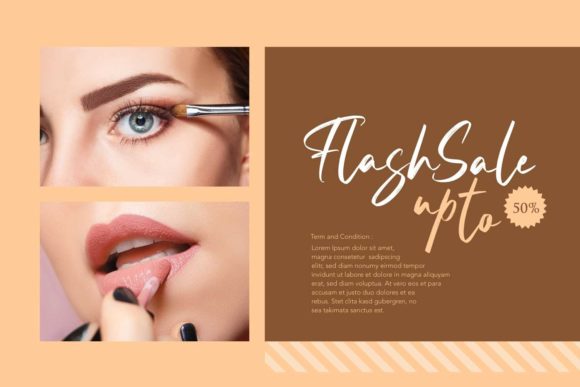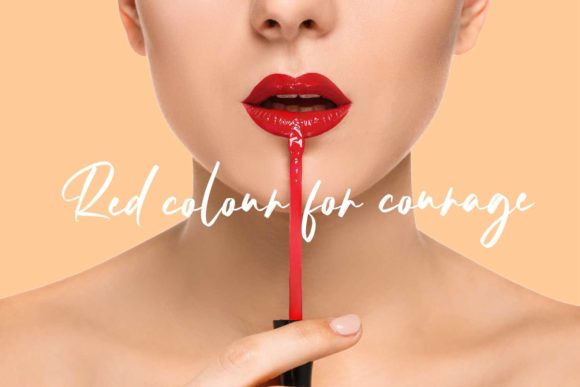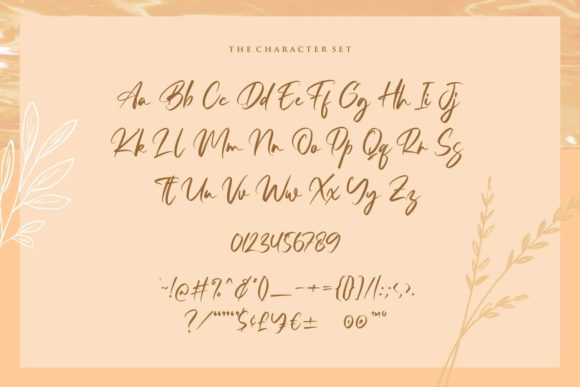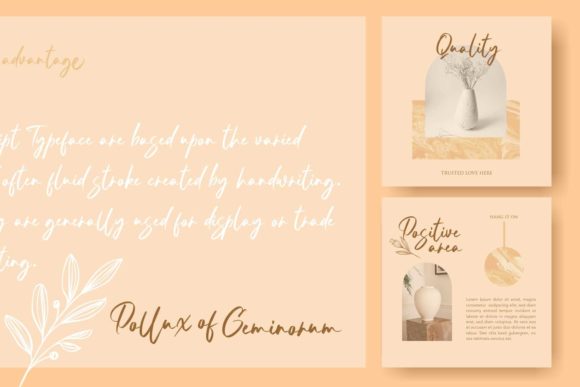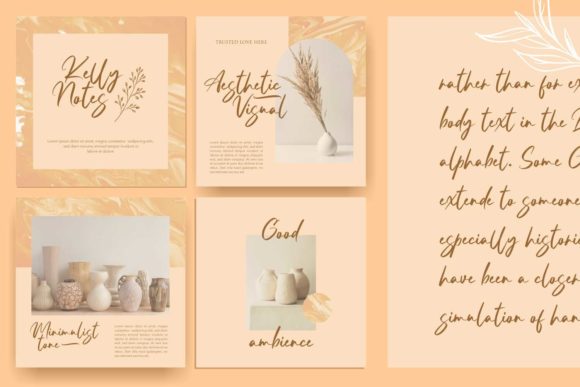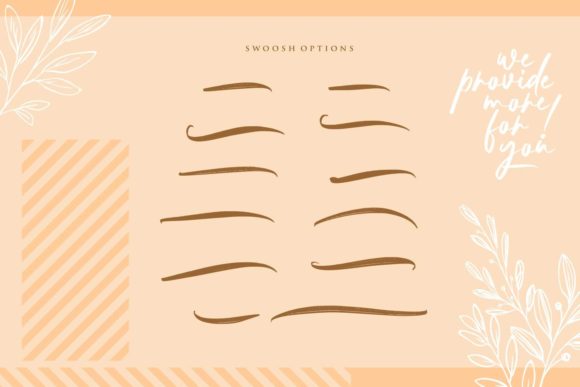
Bresitton Font: Elevate Your Designs with a Relaxed Brushed Script
In the world of graphic design, typography plays a crucial role in conveying the tone and aesthetic of a project. When it comes to creating visually stunning and cohesive designs, selecting the right font is essential. If you’re on the hunt for a font that exudes a sense of relaxation and sophistication, look no further than Bresitton. This beautiful brushed script font is designed to bring a touch of elegance and modernity to your designs, making it perfect for a wide range of applications.
What is Bresitton Font?
Bresitton is a carefully crafted brushed script font that boasts a sleek and gorgeous appearance. Its relaxed demeanor makes it an excellent choice for designers who want to add a touch of personality to their work without compromising on readability. Whether you’re working on a social media campaign, product packaging, poster, or banner, Bresitton is the perfect companion to help you achieve your creative vision.
Key Features of Bresitton Font
So, what sets Bresitton apart from other fonts? Here are some of its key features:
- Relaxed Brushed Script: Bresitton’s unique brushed script style gives it a laid-back, effortless vibe that’s perfect for designs that require a touch of sophistication.
- Sleek and Gorgeous: With its clean lines and elegant curves, Bresitton is sure to elevate your designs and make them stand out from the crowd.
- Swashes and Ligatures: To give you even more creative flexibility, Bresitton comes with a range of swashes and ligatures. These allow you to experiment with different combinations and create truly unique designs.
- Versatile: Whether you’re working on a social media post, product packaging, or large-scale advertising campaign, Bresitton is the perfect choice.
Why Choose Bresitton Font?
With so many fonts available, why should you choose Bresitton? Here are just a few compelling reasons:
- Unique Style: Bresitton’s distinctive brushed script style sets it apart from more traditional fonts, giving your designs a fresh and modern look.
- Ease of Use: Despite its sophisticated appearance, Bresitton is incredibly easy to use, even for those who are new to graphic design.
- Time-Saving: With Bresitton’s extensive range of swashes and ligatures, you can create a wide range of designs without having to spend hours crafting each one from scratch.
Using Bresitton Font in Your Designs
So, how can you incorporate Bresitton into your designs? Here are a few ideas to get you started:
- Social Media: Use Bresitton to create eye-catching social media posts that showcase your brand’s personality.
- Product Packaging: Add a touch of elegance to your product packaging with Bresitton’s sophisticated brushed script style.
- Posters and Banners: Create stunning posters and banners that grab attention with Bresitton’s sleek and gorgeous appearance.
In conclusion, Bresitton font is a versatile and stylish brushed script font that’s perfect for designers and crafters looking to elevate their designs. With its unique style, ease of use, and extensive range of swashes and ligatures, Bresitton is an excellent choice for a wide range of applications. Whether you’re working on a social media campaign, product packaging, or large-scale advertising project, Bresitton is sure to help you achieve your creative vision.